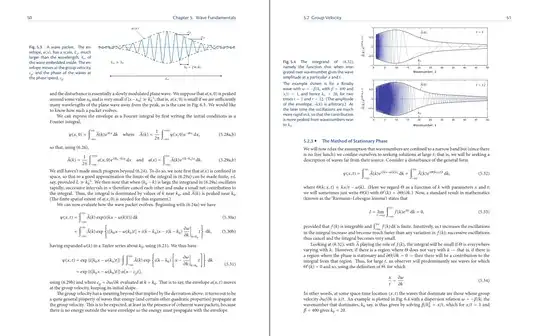
Are there some examples of long, real-world documents showing the variety of text and mathematical fonts now available? With unicode-math there are now many more fonts for text and mathematics, both commercial and public-domain, than before. It is easy enough to find short examples, but what I would like to see would be different versions of a long document (e.g., an article or chapter from a book), with each version set in a different font (e.g., Lucida, Minion-Math, Latin Modern, Tex-Gyre, Mathtime, etc).
This type of question seems to come up frequently in this forum and others and I will answer it myself. However, I would also like to see other examples too.
I have posted several versions of a couple of book chapters at the following website: http://empslocal.ex.ac.uk/people/staff/gv219/aofd/fonts/ There you will find the same 100-plus page document typeset with Lucida, Minion-Math, MathTime, Cambria, Tex-Gyre and others. Comments, and other examples, would be welcome.
Also, as an update, for the final version of the book I ended up using Minion for text, Cronos for sans serif, and Minion-Math for math, and you can see this at http://empslocal.ex.ac.uk/people/staff/gv219/aofd
The first edition was written using Lucida for text and maths. I'm now preparing a second edition and will either use Lucida again or Minion plus Minion-math from typoma.com, which I like as it is elegant, readable and very comprehensive. – GeoffV Feb 02 '14 at 15:18
• @GeoffV, it's beautiful, especially the final version. I added screenshots in the post. – lblb Apr 23 '17 at 12:25